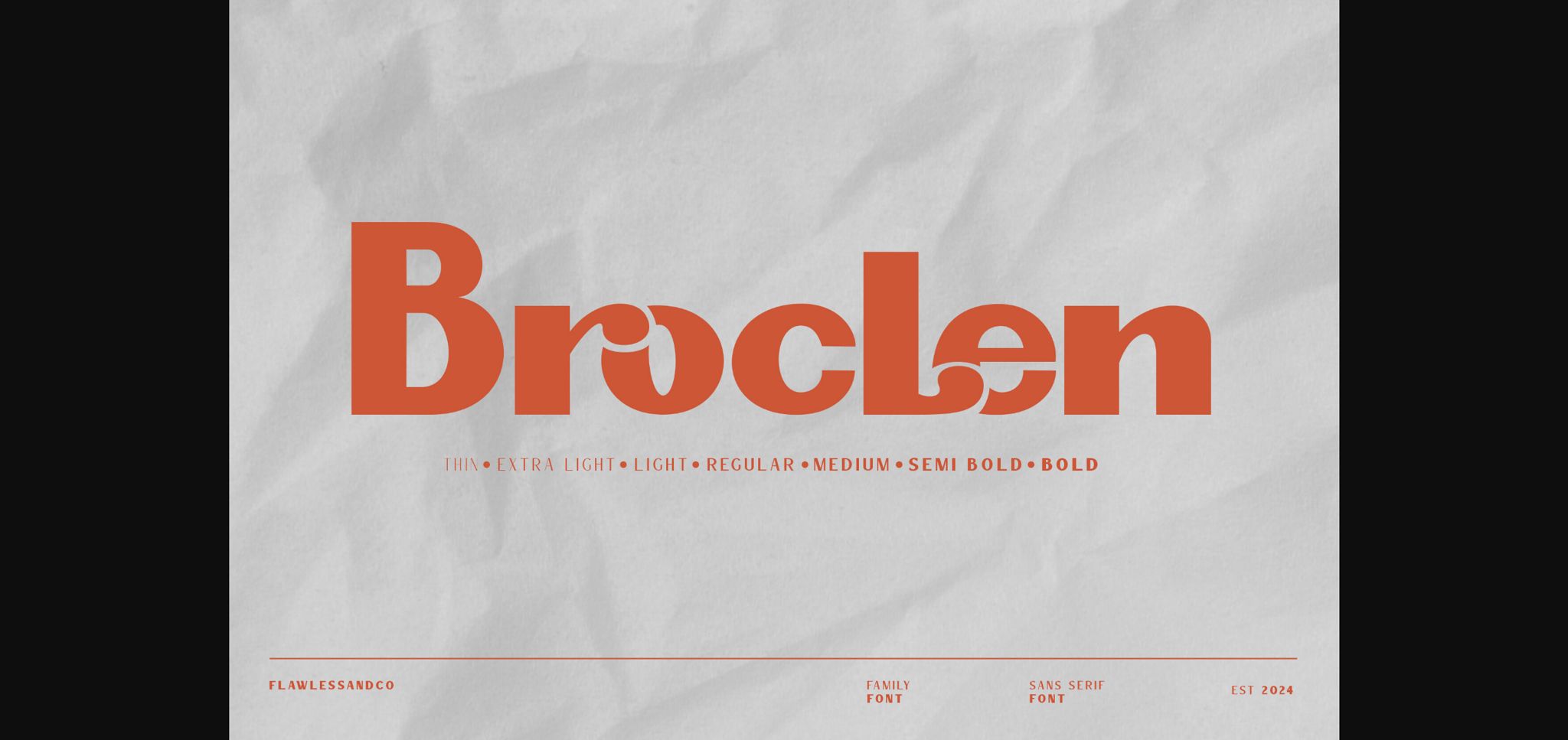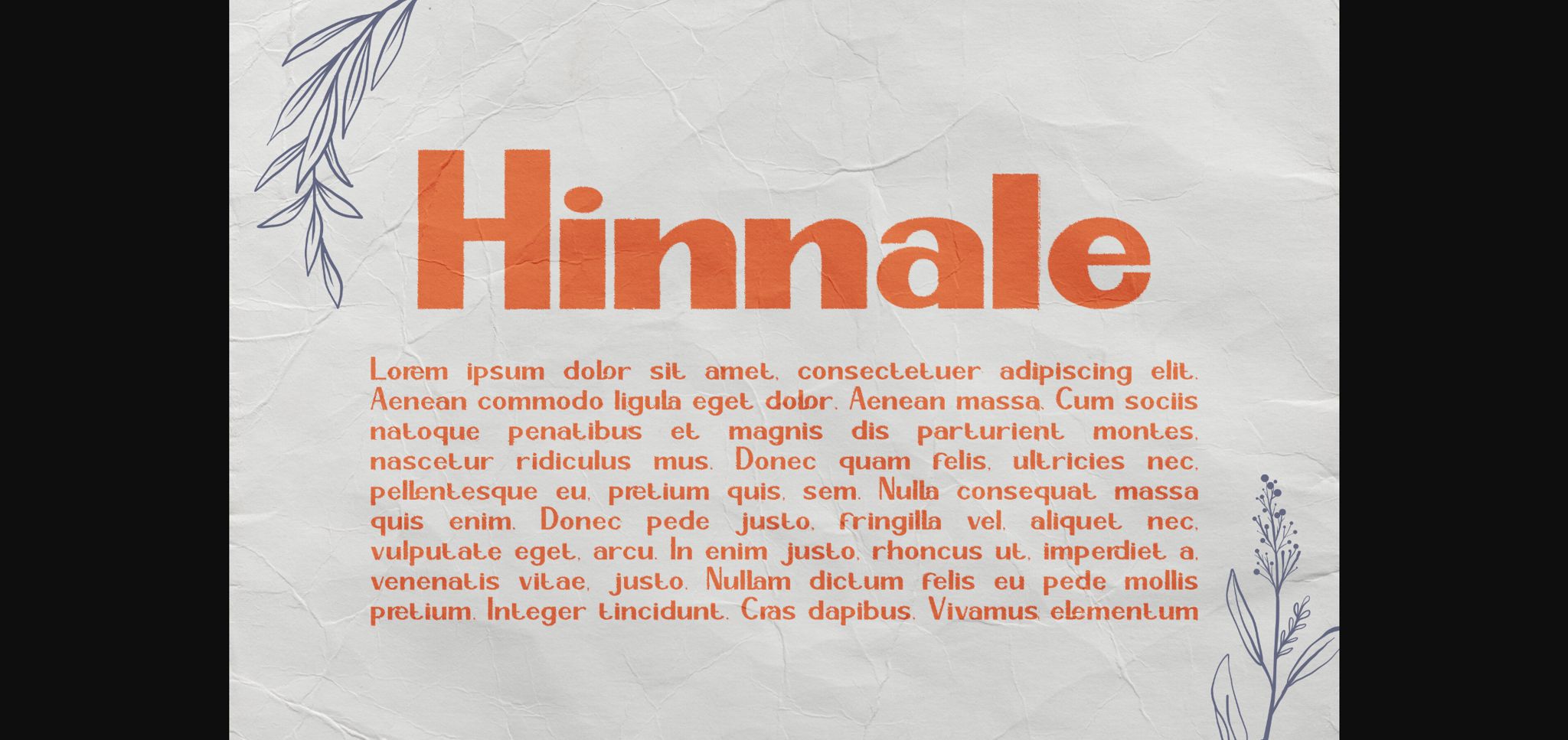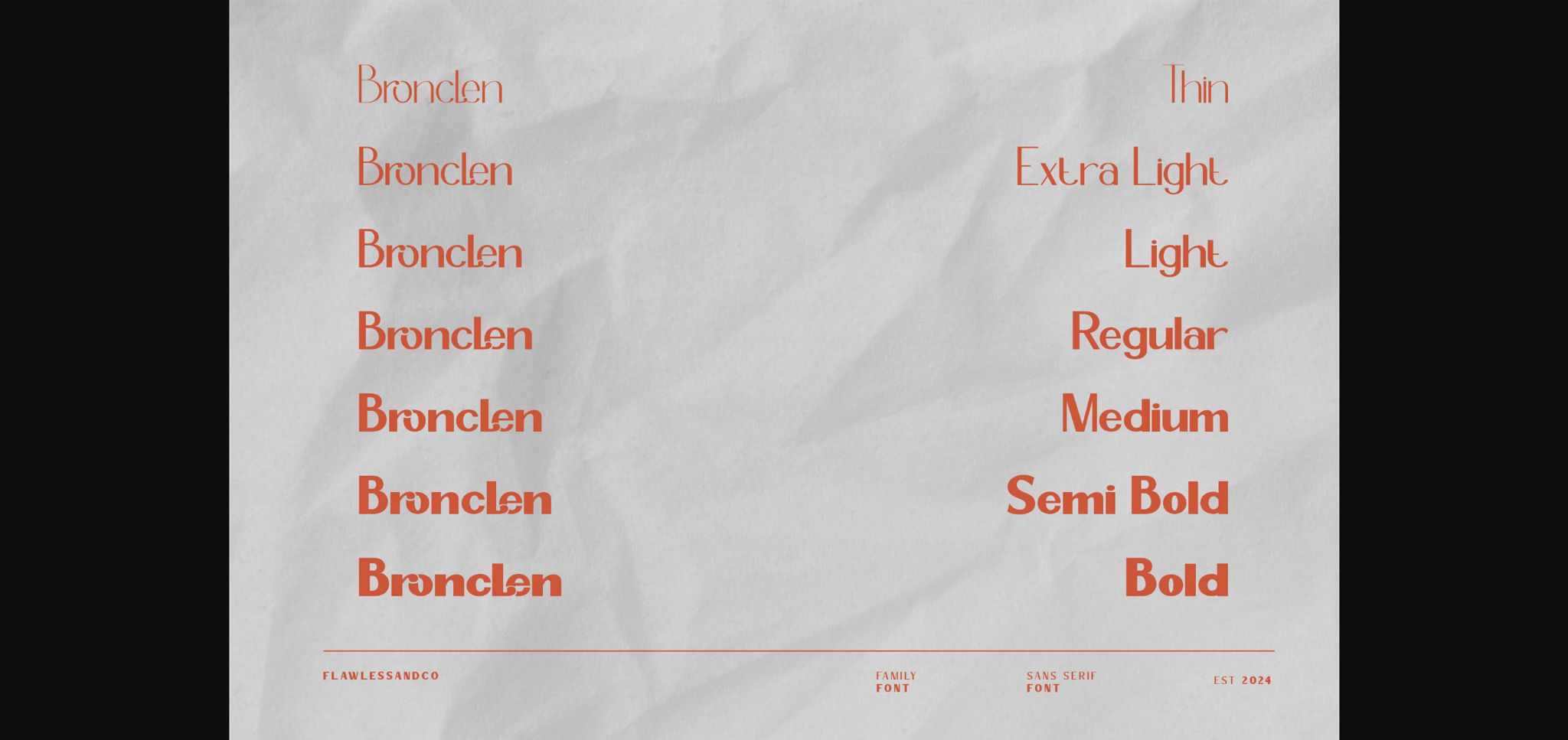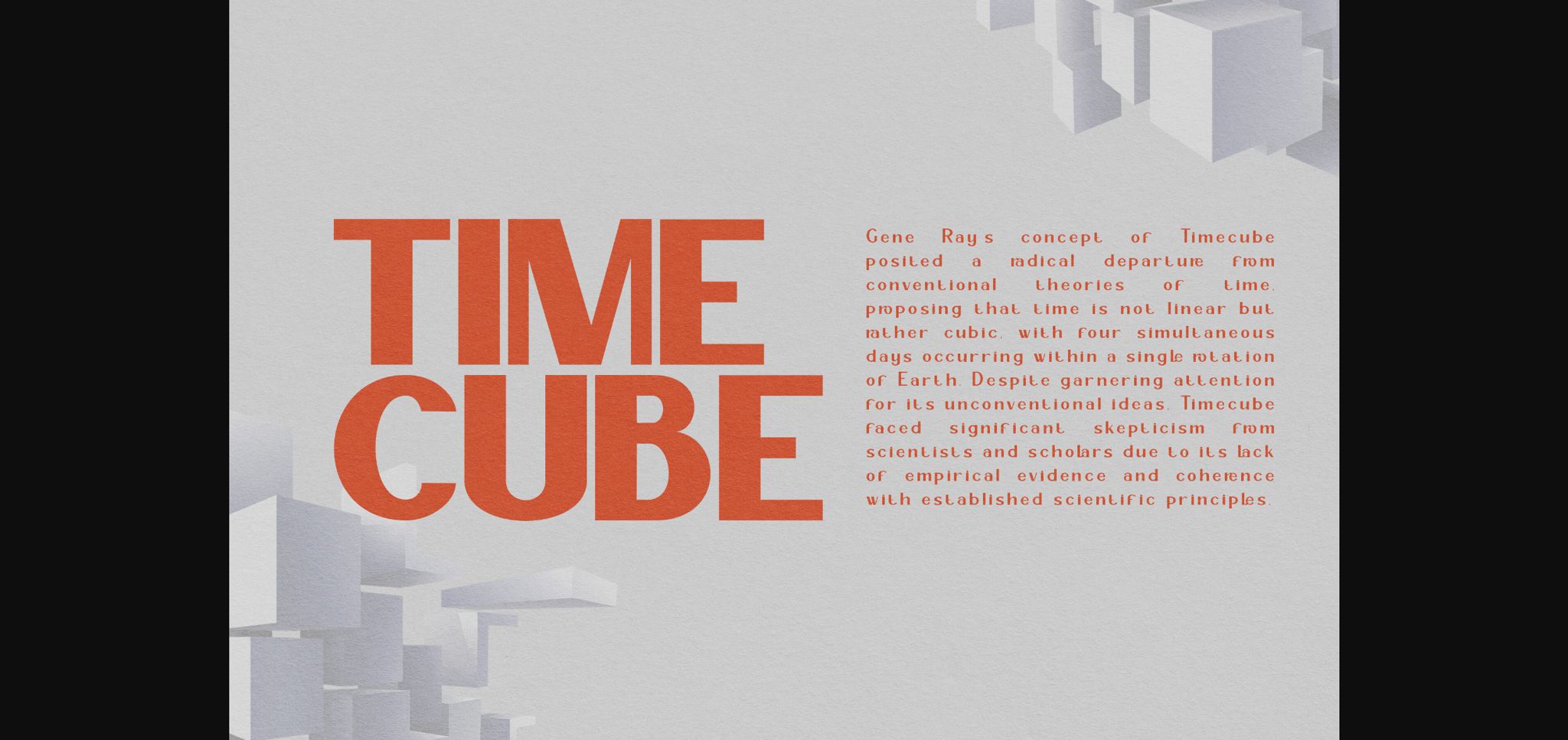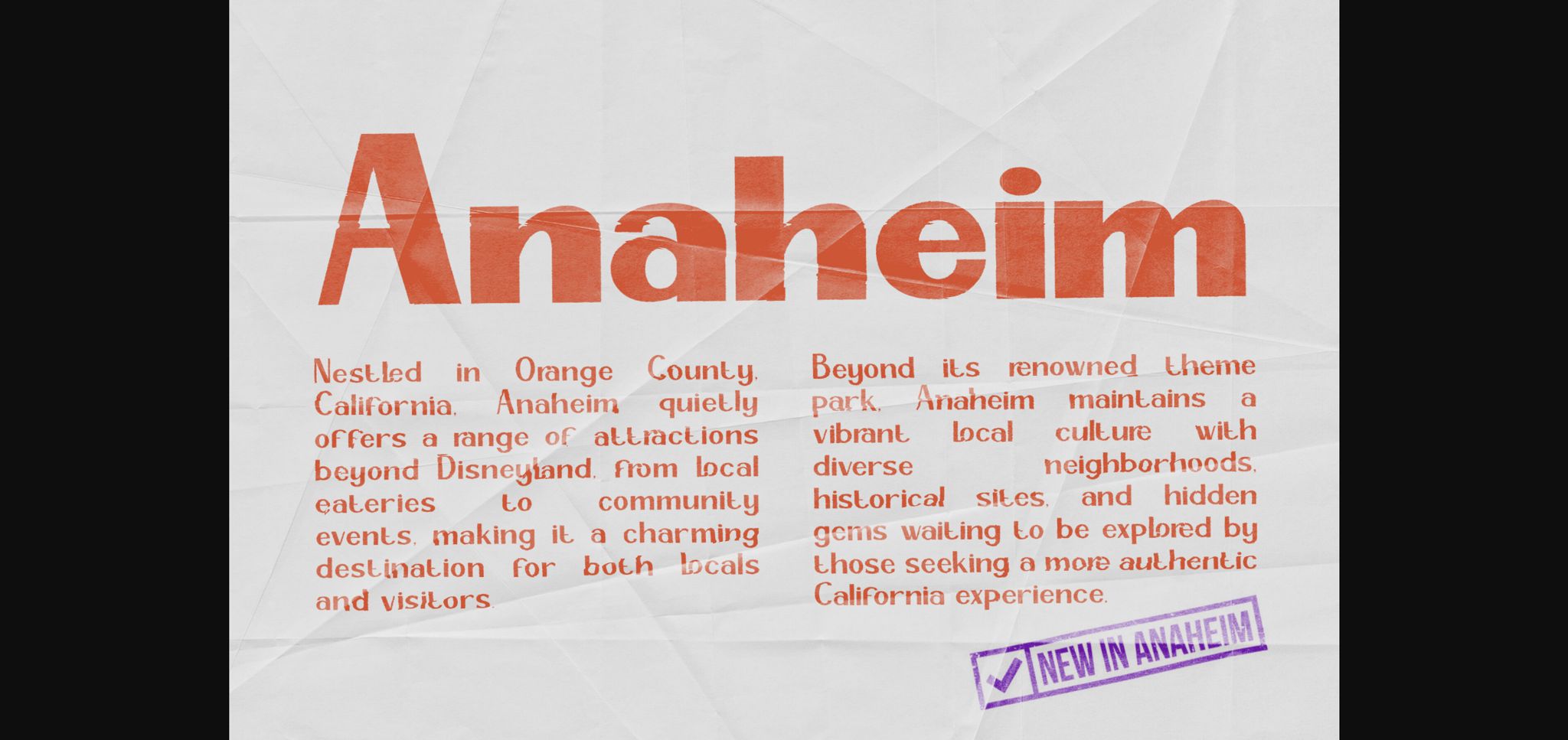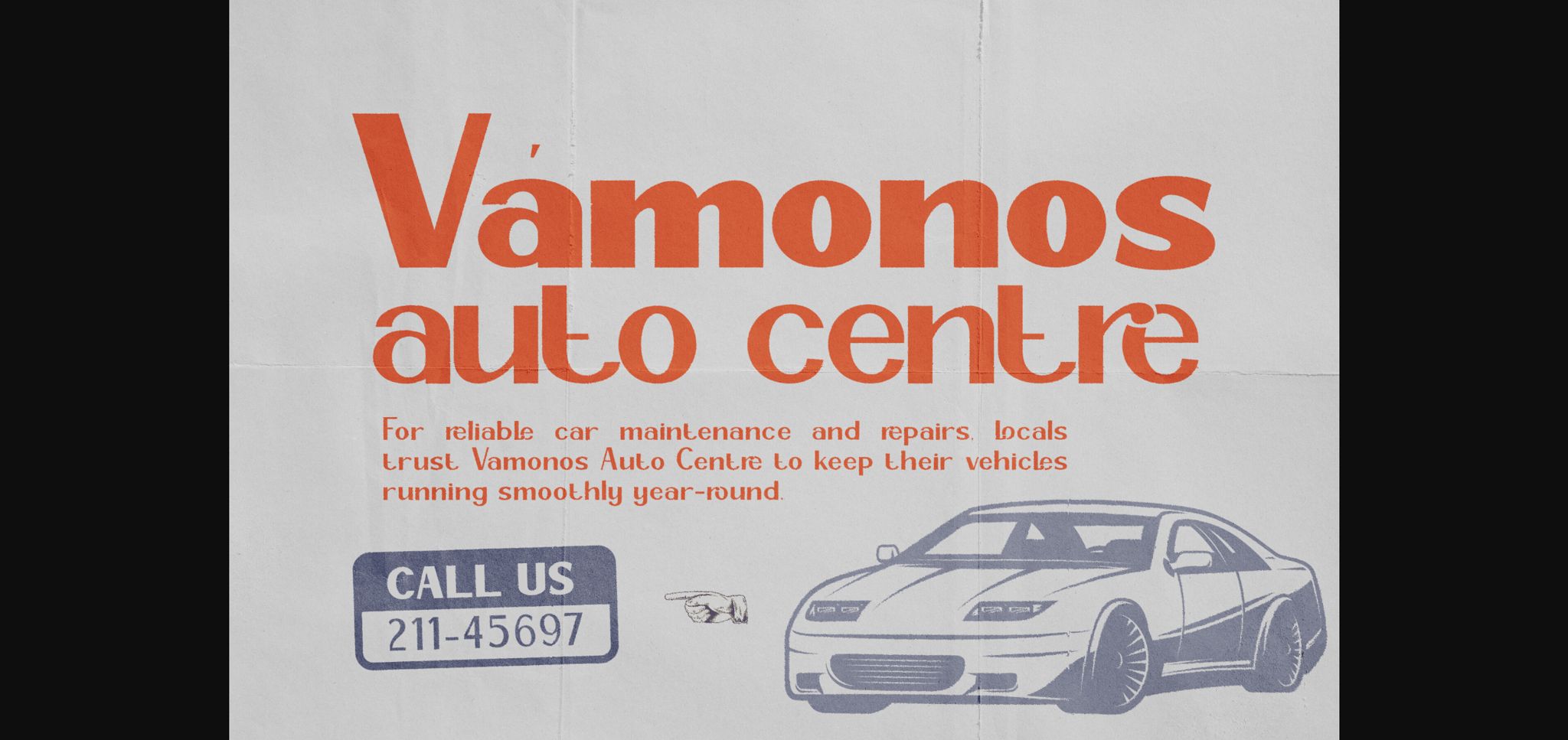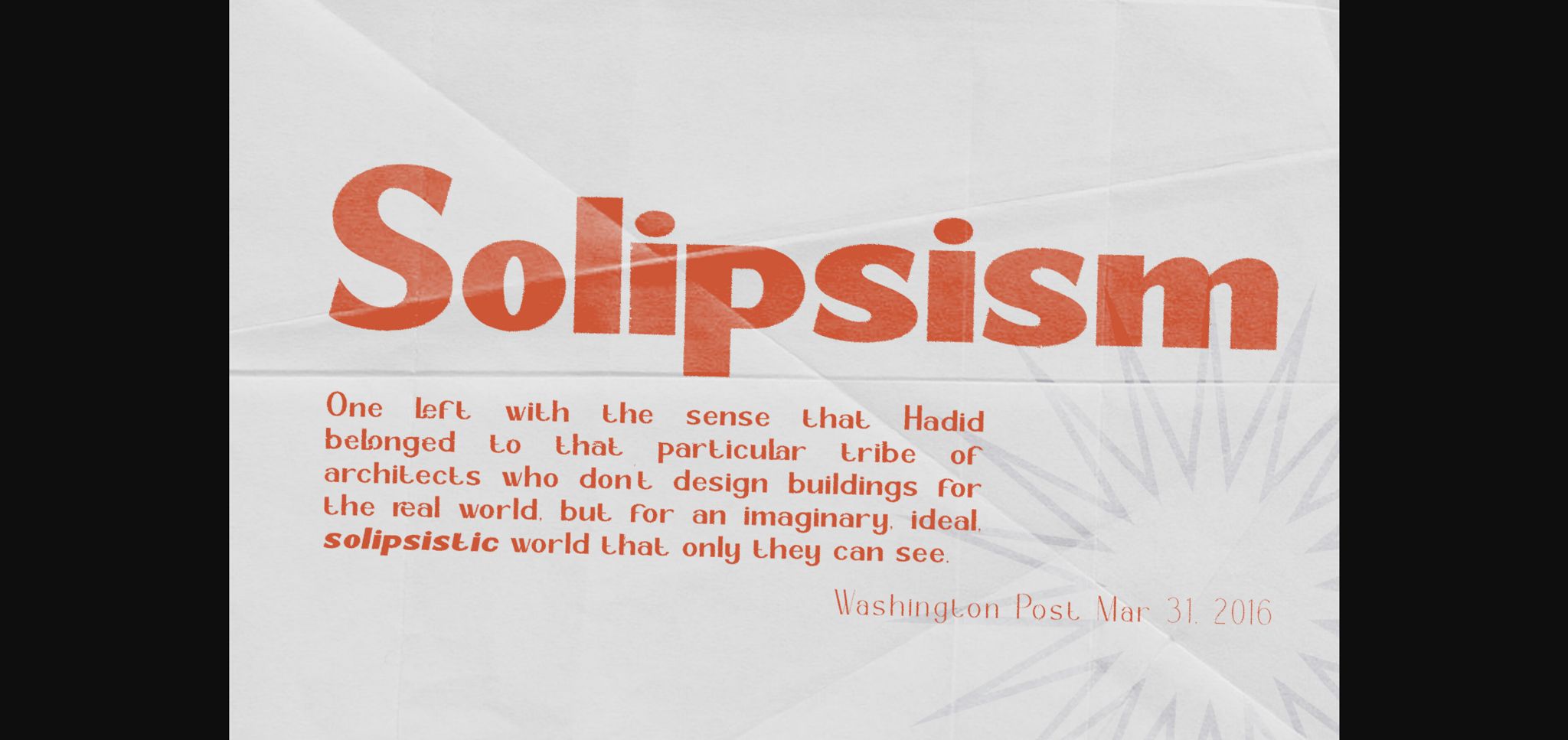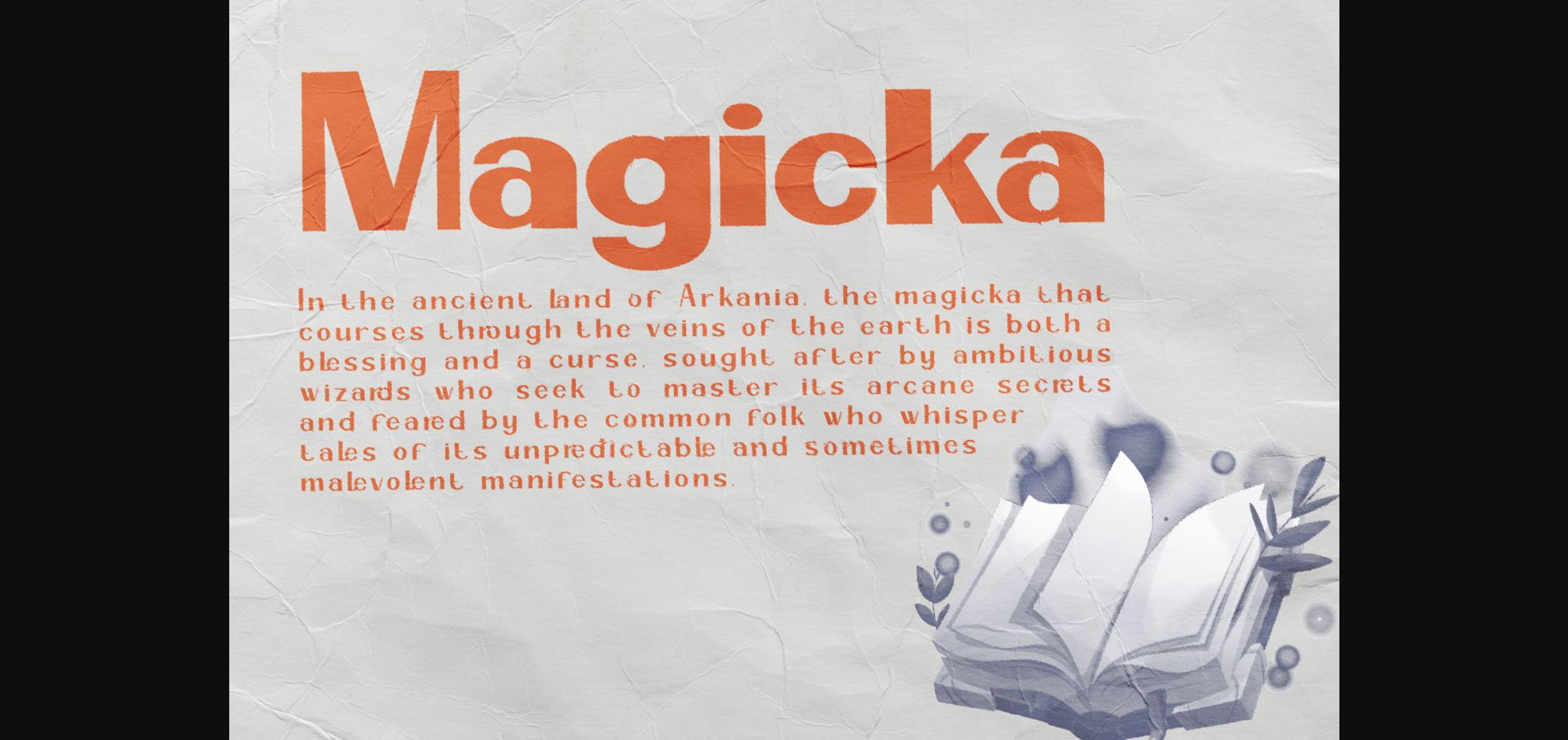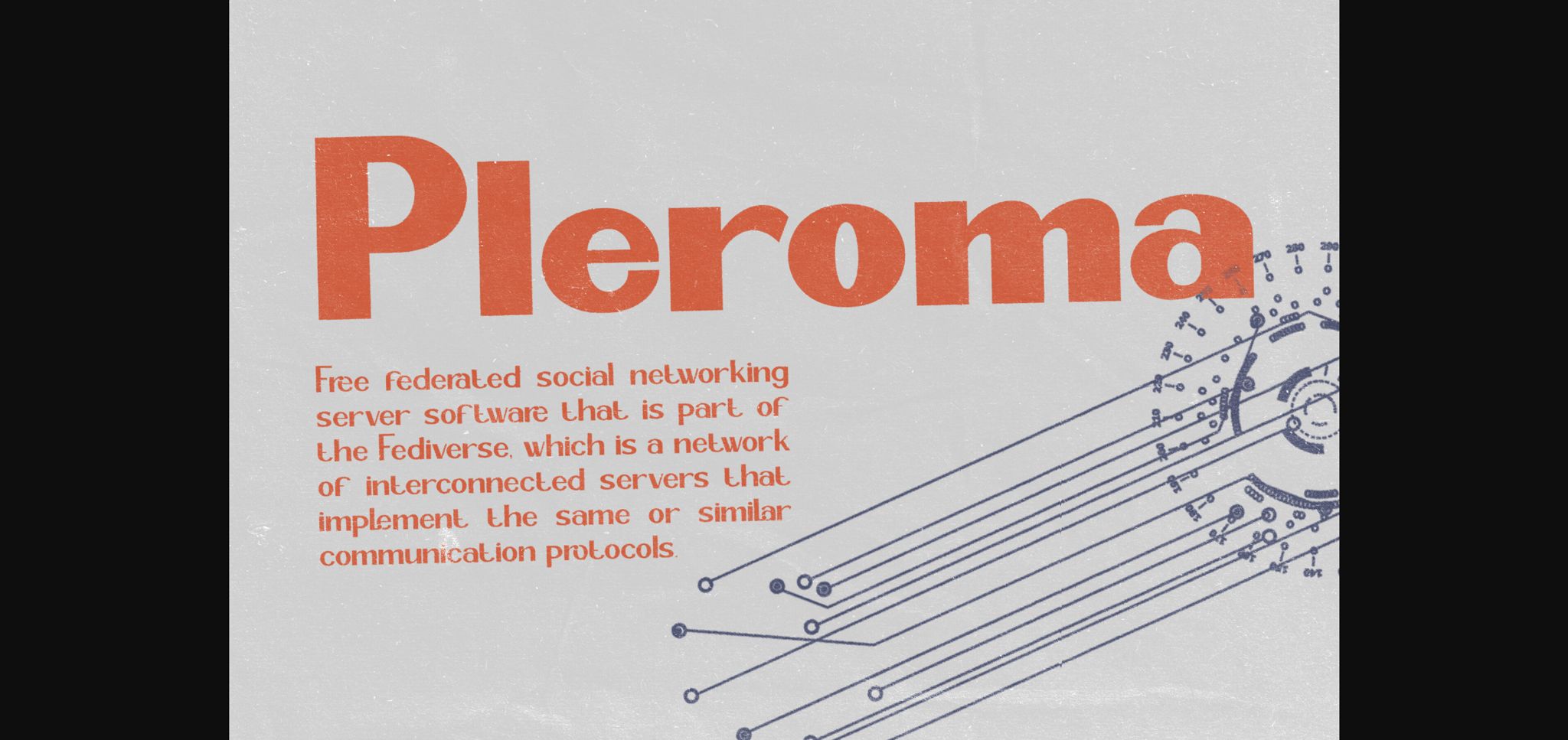
Brocle Font
About Brocle Font
Introducing Broclen, a sans serif font that exudes sophistication and style. With its clean lines, geometric shapes, and subtle stroke variations, Broclen is perfect for creating a modern and refined look for your branding, web design, and editorial projects. Broclen consists of various weights ranging from thin to bold styles, including thin, extra light, light, regular, medium, semi-bold, and bold.